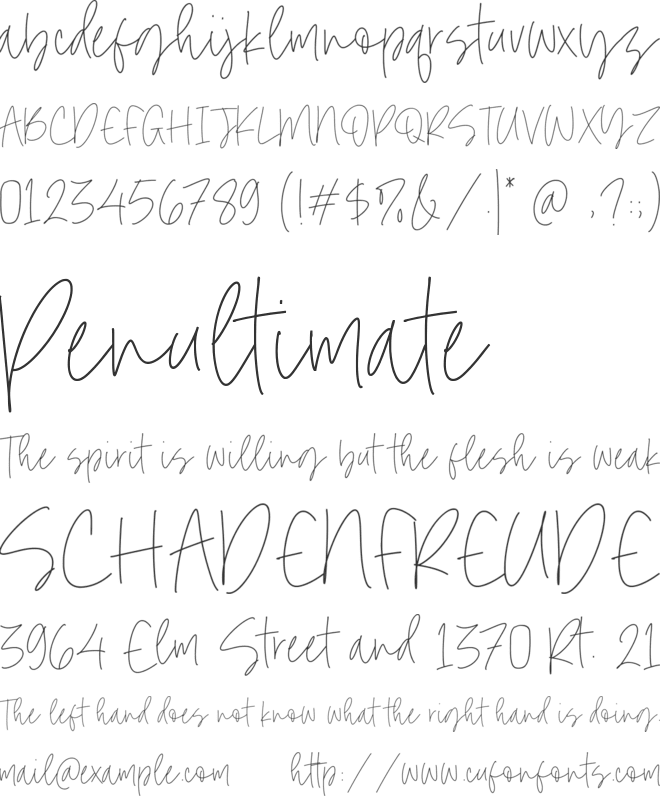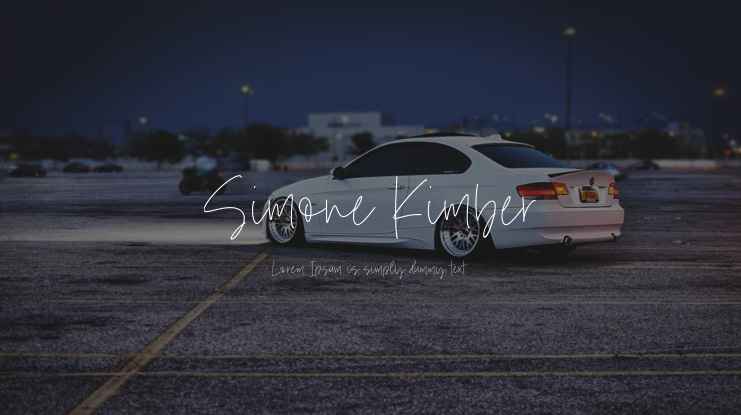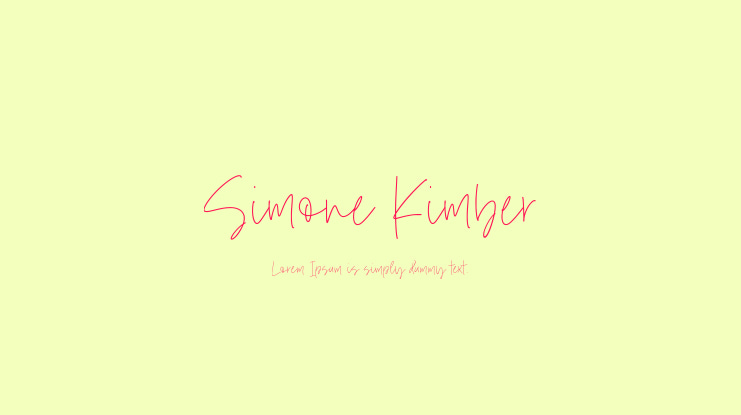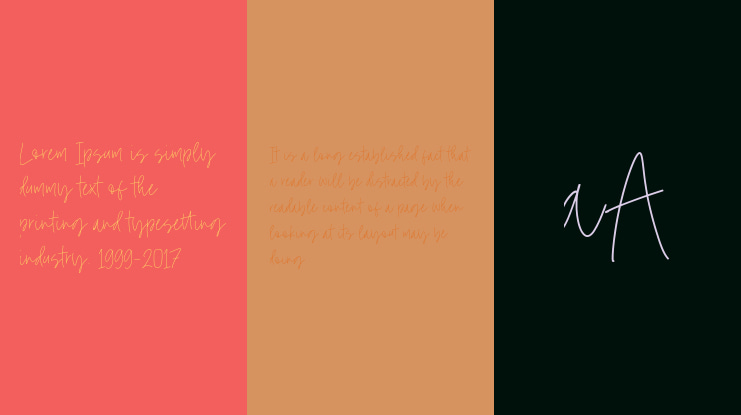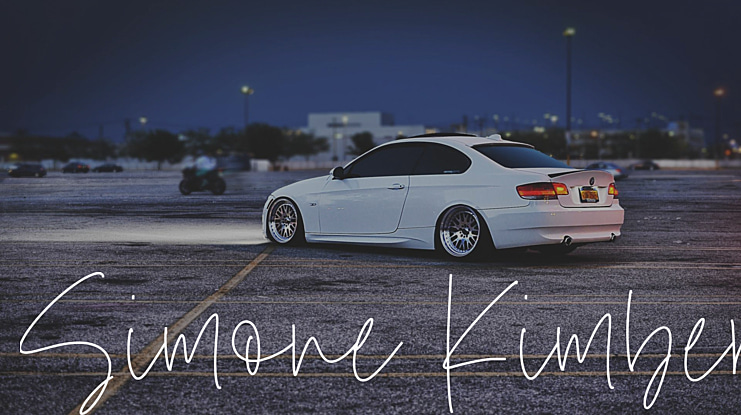
The Simone Kimber Handwritten Font is a fresh and modern script font that will give your business a warm and inviting feel. Experience the magic of this font for yourself and take advantage of its versatility.
Simone Kimber is perfect for a variety of uses, such as product packaging, branding projects, magazines, social media, weddings, or simply to add a touch of elegance to any design.
Key features of the Simone Kimber Font include:
- It includes a full set of standard alphabet and punctuation characters.
- Simone Kimber also offers multilingual support.